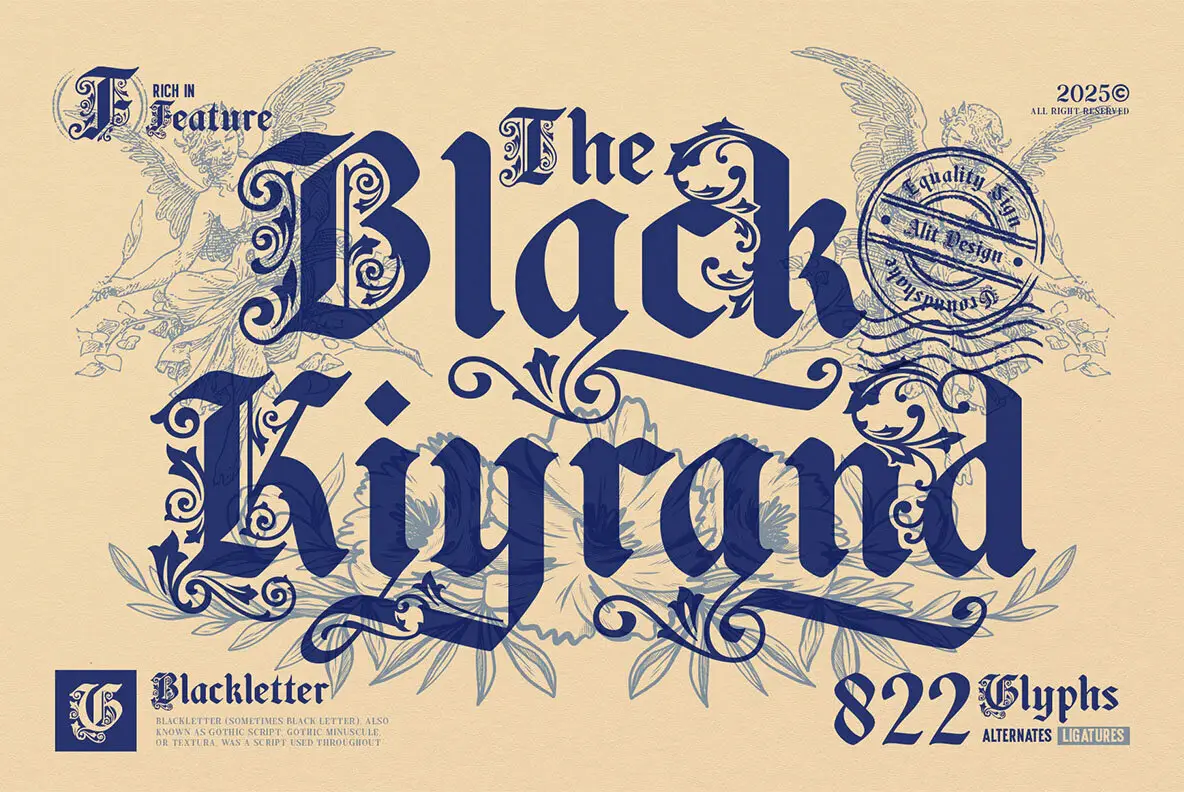
Black Kiyrand Font
Black Kiyrand Regular
Black Kiyrand Typeface captures the essence of medieval calligraphy with a bold modern twist. Drawing from Gothic manuscript traditions adorned with intricate flourishes, it balances historical elegance with contemporary style. The typeface offers 822 glyphs featuring alternates and ligatures, enhancing its versatility for creative projects. It's ideal for vintage posters, book covers, certificates, as well as branding, packaging, and apparel, infusing them with an old-world charm. Uppercase characters boast ornate detailing perfect for headlines or monograms, while the lowercase ensures readability. With its estimated release in 2025, Black Kiyrand is less a font and more a declaration of regal typographic style.Black Kiyrand Typeface: Ornamental Blackletter